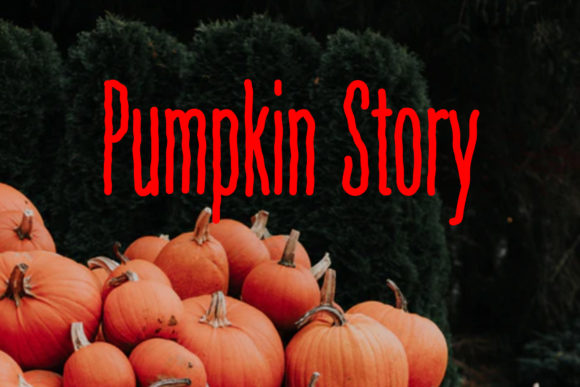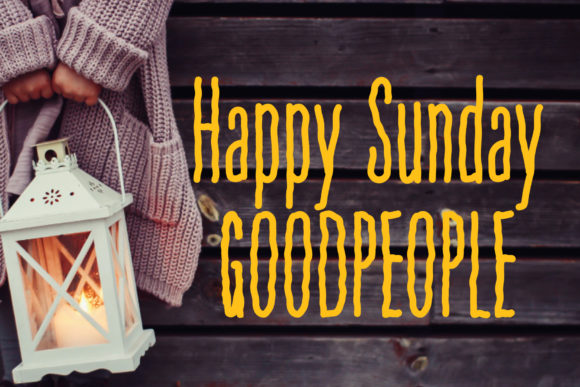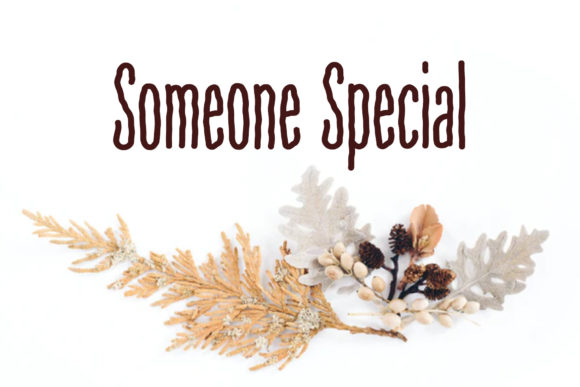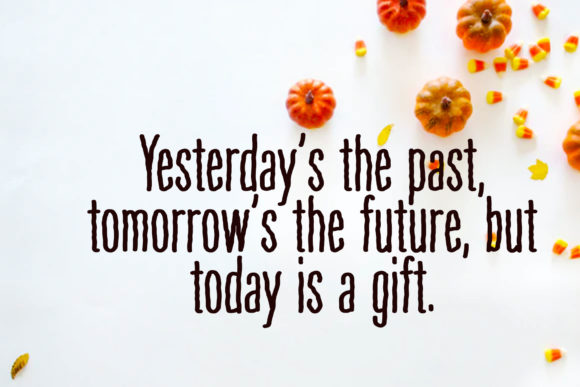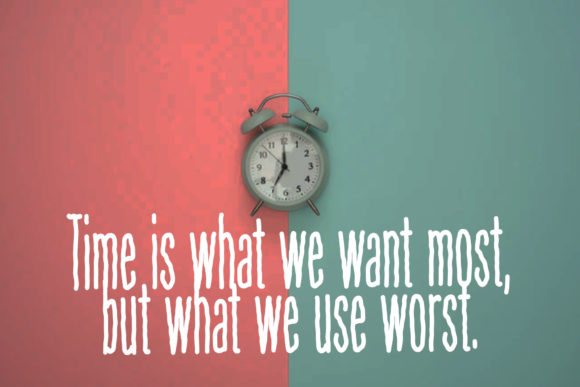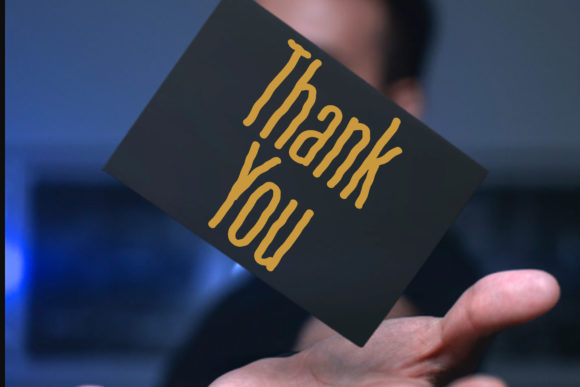
Fall in Halloween Font: Elevate Your Designs with a Spooky Touch
Are you looking for a font that can add a spooky touch to your designs, especially during the Halloween season? Look no further than the Fall in Halloween font. This cool and fun-looking display font is perfect for designers and crafters who want to create eye-catching projects that stand out from the crowd. In this article, we’ll explore the features and benefits of the Fall in Halloween font, and how you can use it to take your designs to the next level.
What is Fall in Halloween Font?
Fall in Halloween font is a display font designed specifically for Halloween-themed projects. Its unique and playful style makes it perfect for creating eye-catching headlines, titles, and captions. The font comes with a wide range of characters, including uppercase and lowercase letters, numbers, and special characters, making it versatile and easy to use.
Key Features of Fall in Halloween Font
- Unique and Playful Style: The Fall in Halloween font has a distinctive and playful style that is sure to grab attention. Its bold lines and quirky characters make it perfect for creating Halloween-themed designs that stand out.
- Wide Range of Characters: The font comes with a wide range of characters, including uppercase and lowercase letters, numbers, and special characters, making it easy to use for a variety of projects.
- Easy to Read: Despite its bold and playful style, the Fall in Halloween font is easy to read, making it perfect for creating designs that need to be both eye-catching and legible.
- Compatible with a Variety of Projects: The Fall in Halloween font can be used for a wide range of projects, including posters, flyers, invitations, and more.
Benefits of Using Fall in Halloween Font
Using the Fall in Halloween font can bring a number of benefits to your designs. Here are just a few:
- Adds a Spooky Touch: The Fall in Halloween font is designed specifically for Halloween-themed projects, making it the perfect way to add a spooky touch to your designs.
- Increases Visibility: The font’s bold and playful style makes it easy to grab attention, increasing the visibility of your designs.
- Versatile: The Fall in Halloween font can be used for a wide range of projects, making it a versatile addition to your font collection.
Project Ideas Using Fall in Halloween Font
The Fall in Halloween font is versatile and can be used for a wide range of projects. Here are a few ideas to get you started:
- Halloween Invitations: Use the Fall in Halloween font to create spooky and eye-catching invitations for Halloween parties.
- Posters and Flyers: Create bold and eye-catching posters and flyers for Halloween events using the Fall in Halloween font.
- Craft Projects: Use the font to create custom titles and captions for craft projects, such as pumpkins, ghosts, and other Halloween-themed decorations.
- Social Media Graphics: Use the Fall in Halloween font to create eye-catching social media graphics for Halloween-themed posts.
The Fall in Halloween font is a cool and fun-looking display font that is perfect for designers and crafters who want to add a spooky touch to their designs. With its unique and playful style, wide range of characters, and ease of use, it’s the perfect addition to any font collection. Whether you’re creating Halloween invitations, posters, or craft projects, the Fall in Halloween font is sure to make your designs stand out. So why wait? Download the Fall in Halloween font today and start creating spooky and eye-catching designs!